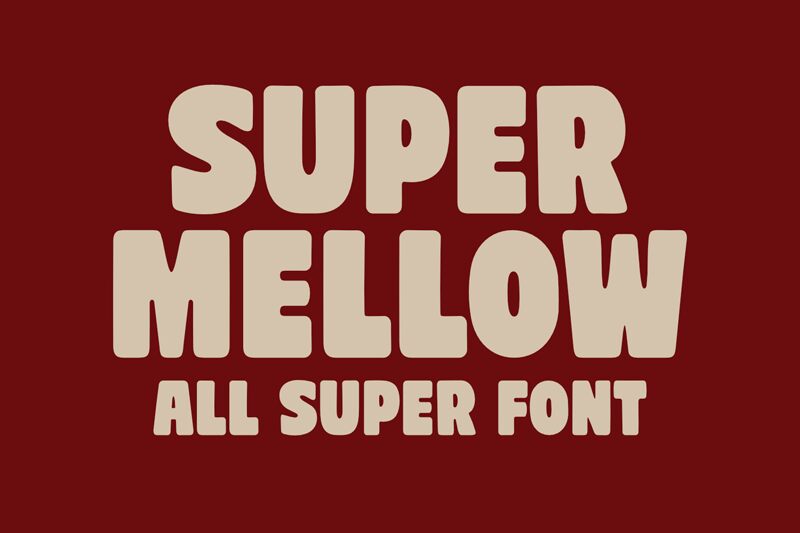
Super Mellow Regular
Super Mellow font by fsuarez913 is a free bold rounded display typeface with a thick, inky softness that feels both playful and grounded. Its chunky shapes and pillowy curves soak up space in the best way, giving headlines a cozy, approachable presence while staying clean and readable. The forms feel almost hand-pressed, like ink spreading slightly on paper, which adds warmth without turning sloppy.
Using Super Mellow, your text snaps into attention for branding, posters, packaging, social graphics, kids’ materials, logotypes, and event flyers. This free font shines when you scale it up big and keep messages short and punchy. For extra clarity, pair Super Mellow with a simple geometric sans in smaller text to let its friendly, blobby personality stay center stage.